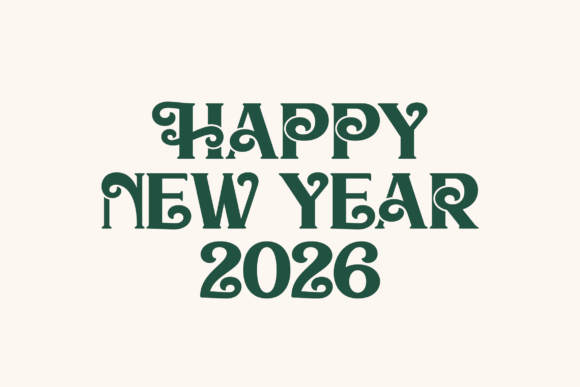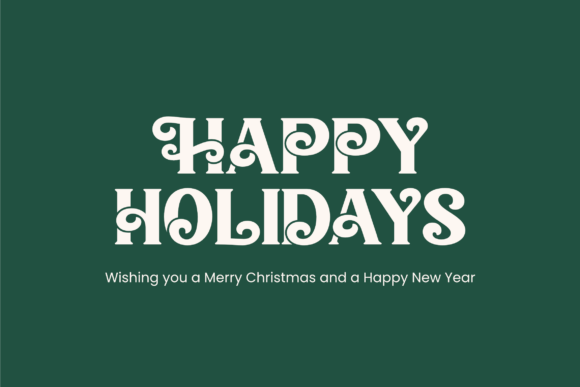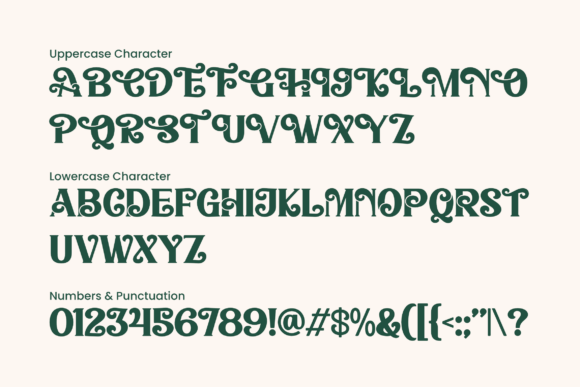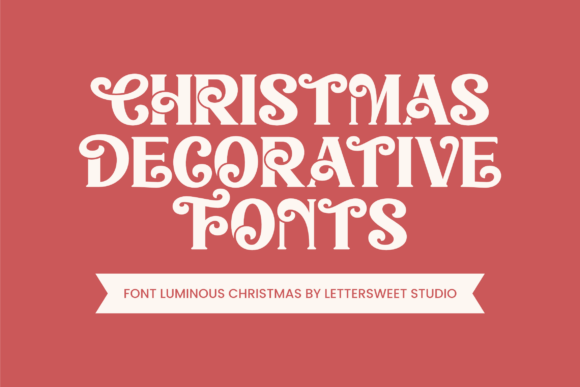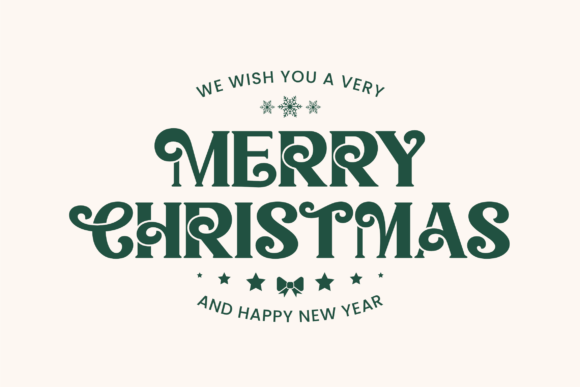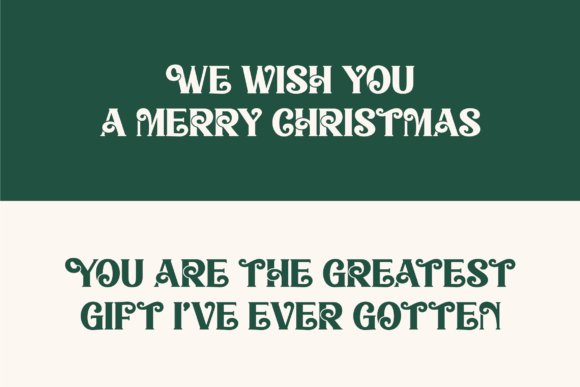
Introduction to Luminous Christmas Font
It’s that magical time of the year when creativity flows freely, and designers get to unleash their festive spirit. As you sit down to plan your holiday projects, the perfect font can make all the difference. Imagine a typeface that embodies the warmth and coziness of the season, yet remains elegant and easy to read. If you’re looking for that special something to elevate your Christmas designs, you’re in luck.
Meet the Luminous Christmas Font, a stunning display font that will add a touch of magic to your creative projects. With its bold letterforms, sweet swirling curves, and a hint of vintage charm, this font is sure to make your designs stand out. Whether you’re creating Christmas cards, gift box packaging, or event posters, Luminous Christmas Font is the perfect design resource to give your projects a premium, high-quality look.
Key Features of Luminous Christmas Font
- Unique, hand-drawn design elements for a creative project that exudes warmth and festivity.
- Includes a range of customizable elements, such as ornaments, snowflakes, and festive borders.
- Includes a range of font sizes and styles to suit various design needs, from small decorative elements to large, bold headings.
- Perfect for creating invitations, greeting cards, social media graphics, and other holiday-themed designs.
Honest Review: Luminous Christmas Font
I recently had the chance to work with the Luminous Christmas Font, and I’m excited to share my thoughts. As a designer, I’m always on the lookout for high-quality design resources that can elevate my creative projects.
First impressions: the Luminous Christmas Font is a beautiful addition to any holiday-themed design. The font features intricate details and a sleek, modern design that’s sure to catch the eye. ✨
Some of the key features that stood out to me include:
- A transparent background that makes it easy to use in a variety of design scenarios.
- A wide range of styles and fonts to choose from, perfect for a creative project.
While the Luminous Christmas Font is a great addition to any design collection, I do have a few minor complaints. ⚠️ The font can be a bit difficult to read at smaller sizes, and some of the characters may require a bit of tweaking to get just right.
Overall, I’m impressed with the Luminous Christmas Font. It’s a high-quality design resource that’s perfect for adding a touch of holiday magic to your creative projects. With a bit of tweaking, it’s sure to become a go-to font for designers everywhere.
Tips for Getting the Most Out of Luminous Christmas Font
For the best results, use the Luminous Christmas Font in conjunction with other festive design elements, such as holly leaves or snowflakes. Experiment with different font sizes and colors to add visual interest to your design.
The Luminous Christmas Font is perfect for holiday-themed designs, such as greeting cards, party invitations, or social media graphics. It’s also great for use in presentations or documents related to winter or holiday-themed topics.